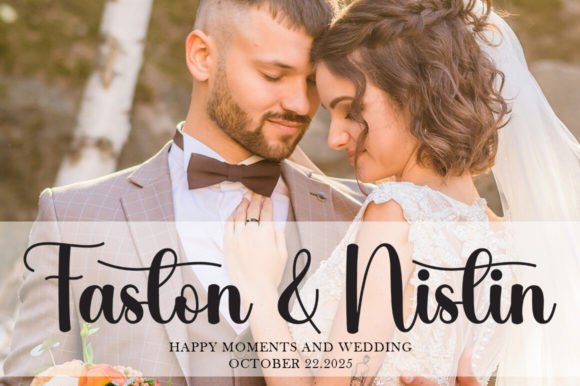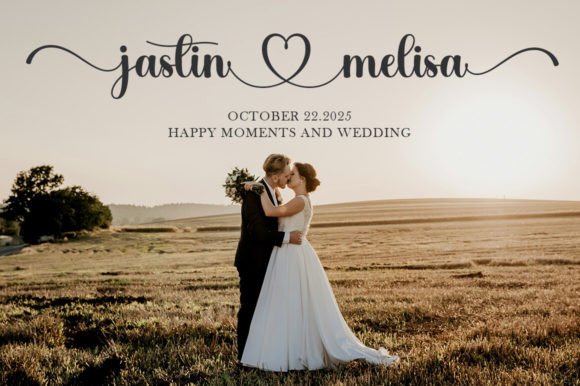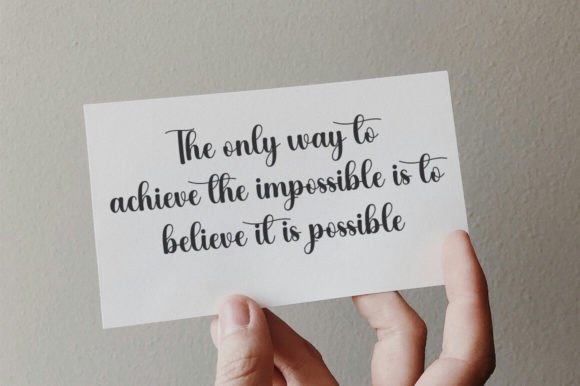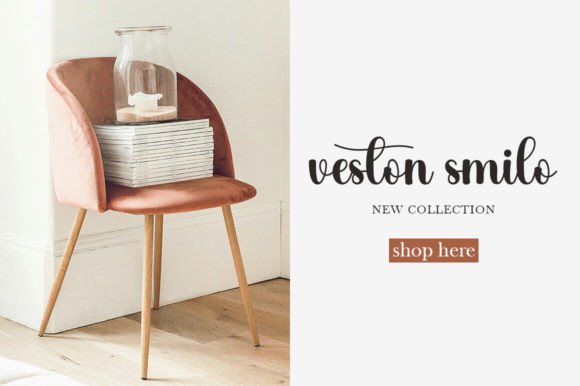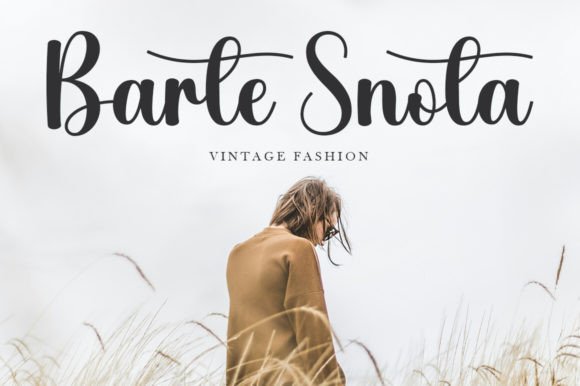
Discover the Elegance of Cartoni Font: A Sophisticated Handwritten Script
Immerse yourself in the placid elegance of Cartoni, an artful handwritten script font that radiates sophistication and tranquility. This beautiful font is designed to bring a new standard to design, effortlessly merging contemporary cool with the charm of timeless beauty. In this article, we’ll explore the features and benefits of Cartoni Font, and how it can elevate your creative vision to new heights.
The Harmony of Curves and Strokes
Cartoni Font is characterized by its harmonious merger of graceful curves and tender strokes, offering a soothing and elegant aesthetic. The font’s design is a masterful blend of modern style and classic charm, making it perfect for a wide range of design applications. Whether you’re working on a branding project, a wedding invitation, or a packaging design, Cartoni Font is sure to impress.
Contemporary Cool Meets Timeless Beauty
Cartoni Font brings a fresh perspective to the world of handwritten script fonts. Its contemporary cool vibe is balanced by the charm of timeless beauty, making it a versatile font that can be used in a variety of contexts. From fashion and beauty to lifestyle and food, Cartoni Font is the perfect choice for designers who want to create a sophisticated and elegant look.
One of the standout features of Cartoni Font is its PUA (Private Use Area) encoding. This means that you can access all of the amazing glyphs and ligatures with ease, giving you a wide range of creative possibilities. With Cartoni Font, you can add an extra layer of sophistication and elegance to your designs, making them truly stand out.
Elevate Your Designs with Cartoni Font
Cartoni Font is more than just a font – it’s a design experience. With its refined aesthetic and elegant charm, it’s the perfect choice for designers who want to create beautiful and sophisticated designs. Whether you’re working on a personal project or a client’s brief, Cartoni Font is sure to help you achieve your creative vision.
Cartoni Font is a must-have for designers and crafters who want to add a touch of elegance and sophistication to their work. With its wide range of uses, from digital design to crafting and DIY projects, Cartoni Font is a versatile font that can be used in many different contexts. Whether you’re creating wedding invitations, party decorations, or social media graphics, Cartoni Font is the perfect choice.
Key Features of Cartoni Font
- Artful handwritten script font
- Harmonious merger of curves and strokes
- Sophisticated and elegant aesthetic
- Contemporary cool meets timeless beauty
- Versatile font suitable for a wide range of design applications
In conclusion, Cartoni Font is a beautiful and sophisticated handwritten script font that is sure to elevate your creative vision to new heights. With its harmonious merger of curves and strokes, PUA encoding, and versatile design, Cartoni Font is the perfect choice for designers and crafters who want to add a touch of elegance and sophistication to their work. So why wait? Discover the elegance of Cartoni Font today and take your designs to the next level.